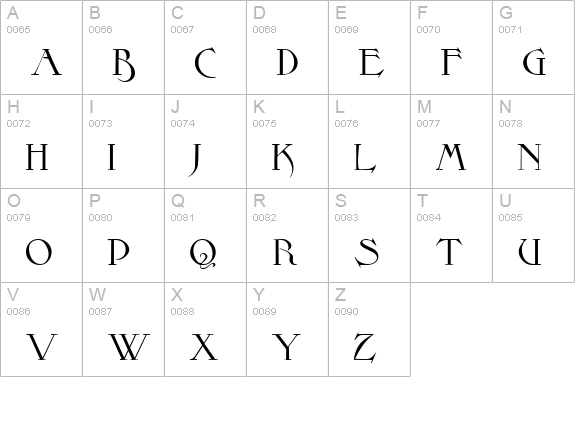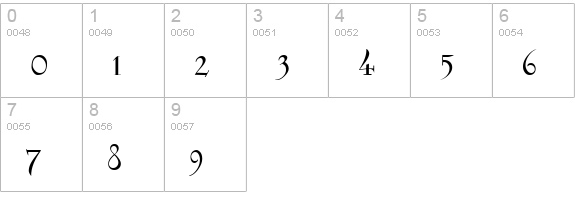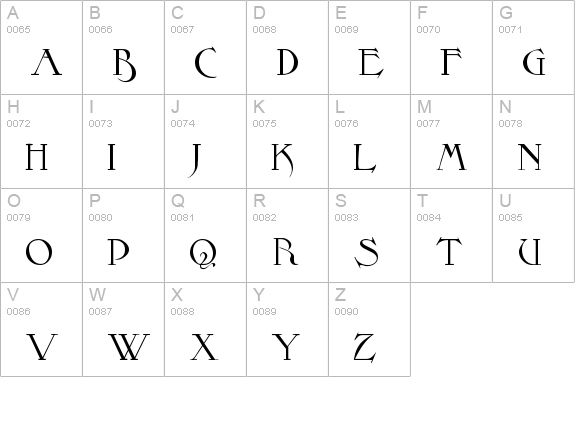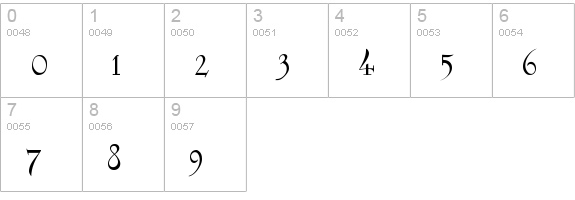
Elphinstone™ font is a sophisticated and elegant typeface that exudes timeless charm and classic style. With its graceful curves and refined details, Elphinstone™ is the perfect choice for projects that require a touch of sophistication and luxury. This exquisite font is available for free download at FontsMarket.com, making it accessible to designers and creatives seeking a high-quality typeface without any cost. Whether you're working on a branding project, editorial design, or any other creative endeavor, Elphinstone™ font will elevate your work with its unique character and exquisite craftsmanship. Embodying a sense of luxury and sophistication, Elphinstone™ font is sure to make a lasting impression on any project it graces. Download this stunning font for free at FontsMarket.com and add a touch of elegance to your designs today.